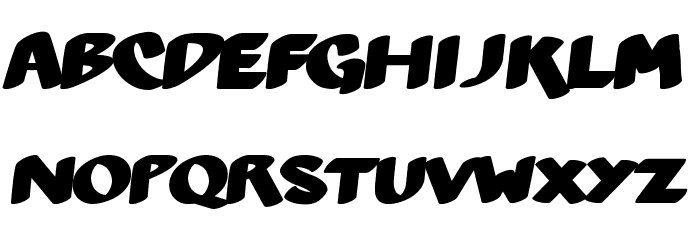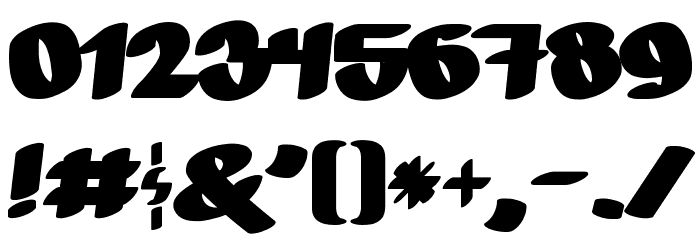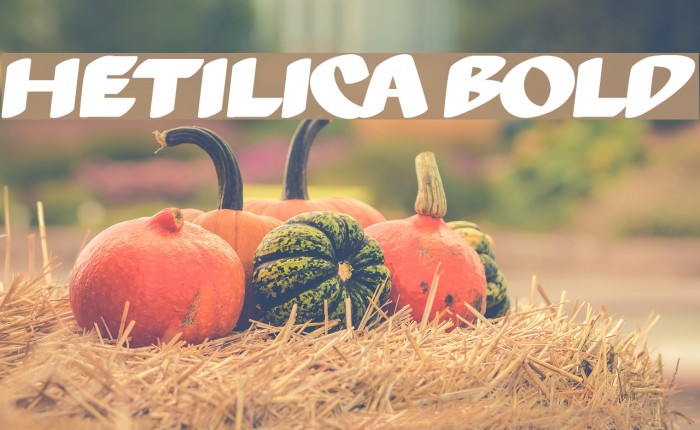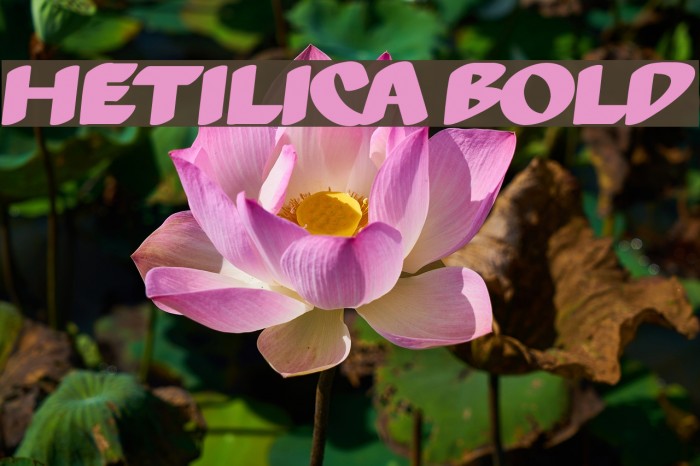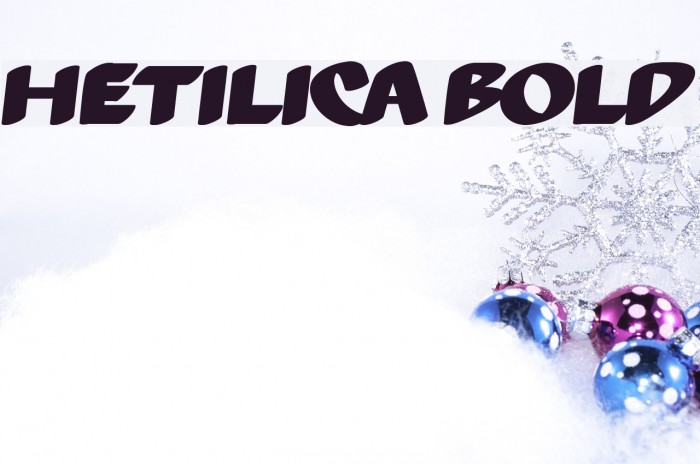
Hetilica Bold Font
This bold and dynamic font features thick, rounded strokes with a playful and energetic style. The characters are slightly slanted, giving a sense of movement and fluidity. The uppercase and lowercase letters maintain a consistent weight, creating a cohesive look across the alphabet. The numbers and special characters are equally bold, ensuring readability and impact. The font's design is modern and eye-catching, making it suitable for projects that require a strong visual presence. Its unique style can add a touch of personality and flair to any design.
A bold, dynamic font with rounded strokes and a playful, energetic style.
- Proposed Projects: Ideal for branding, posters, headlines, and any design needing a bold statement.